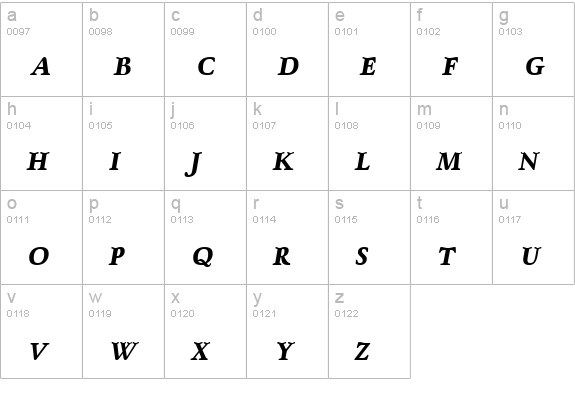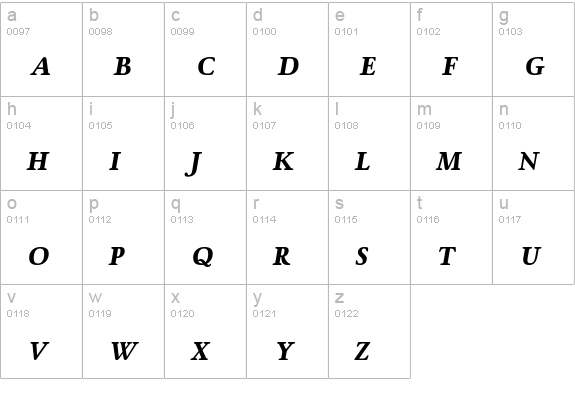
Winthorpe Sc Bold Italic Font Details
Winthorpe Sc Bold Italic is a strong, high-contrast, italic variant in the Winthorpe typeface family \xE2\x80\x94 well suited to headlines, attention-grabbing titles, and strong calls-to-action.
Winthorpe Sc Bold Italic font is a beautifully crafted typeface that exudes elegance and sophistication. With its bold strokes and stylish italic design, this font is perfect for adding a touch of modern flair to any project. Whether you are designing a logo, creating a poster, or working on a branding project, Winthorpe Sc Bold Italic font will make your text stand out. The best part about Winthorpe Sc Bold Italic font is that it is completely free to download. You can easily access this stunning font at FontsMarket.com and start using it in your designs right away. Don't miss out on the opportunity to enhance your creative projects with the timeless beauty of Winthorpe Sc Bold Italic font. Download it today and elevate your typography game to new heights!